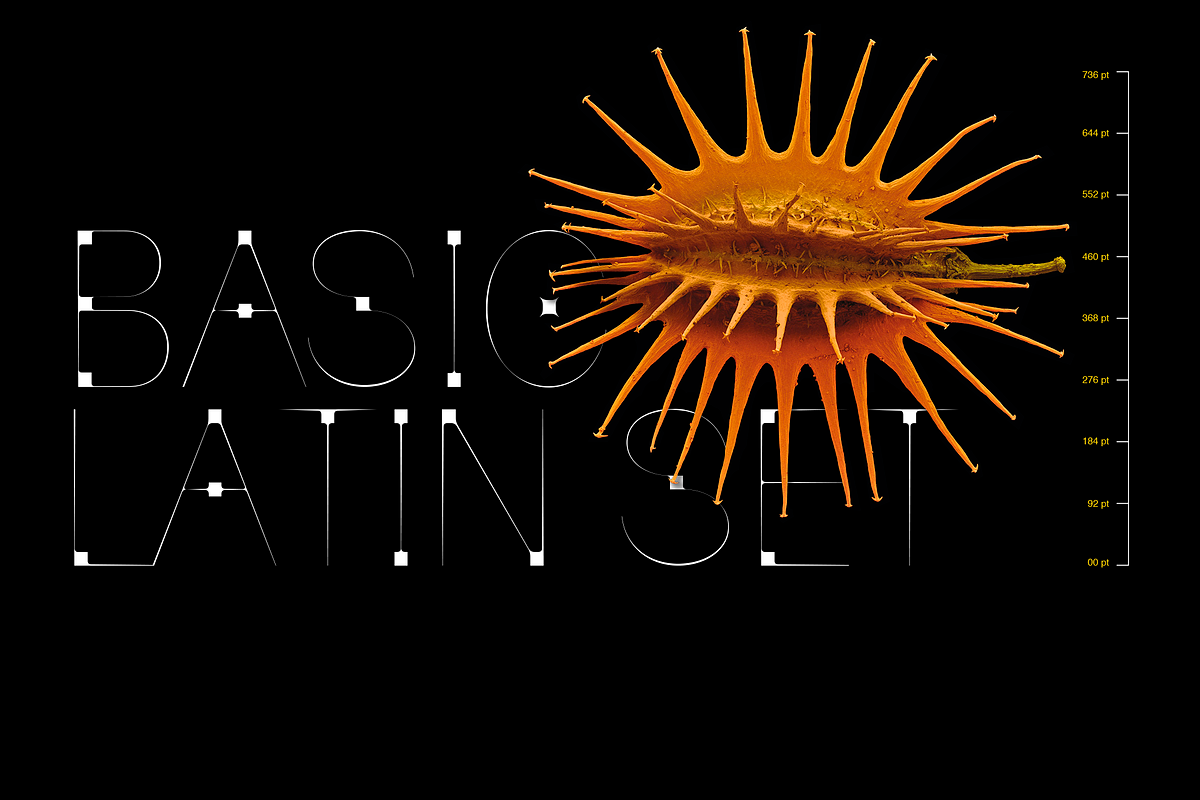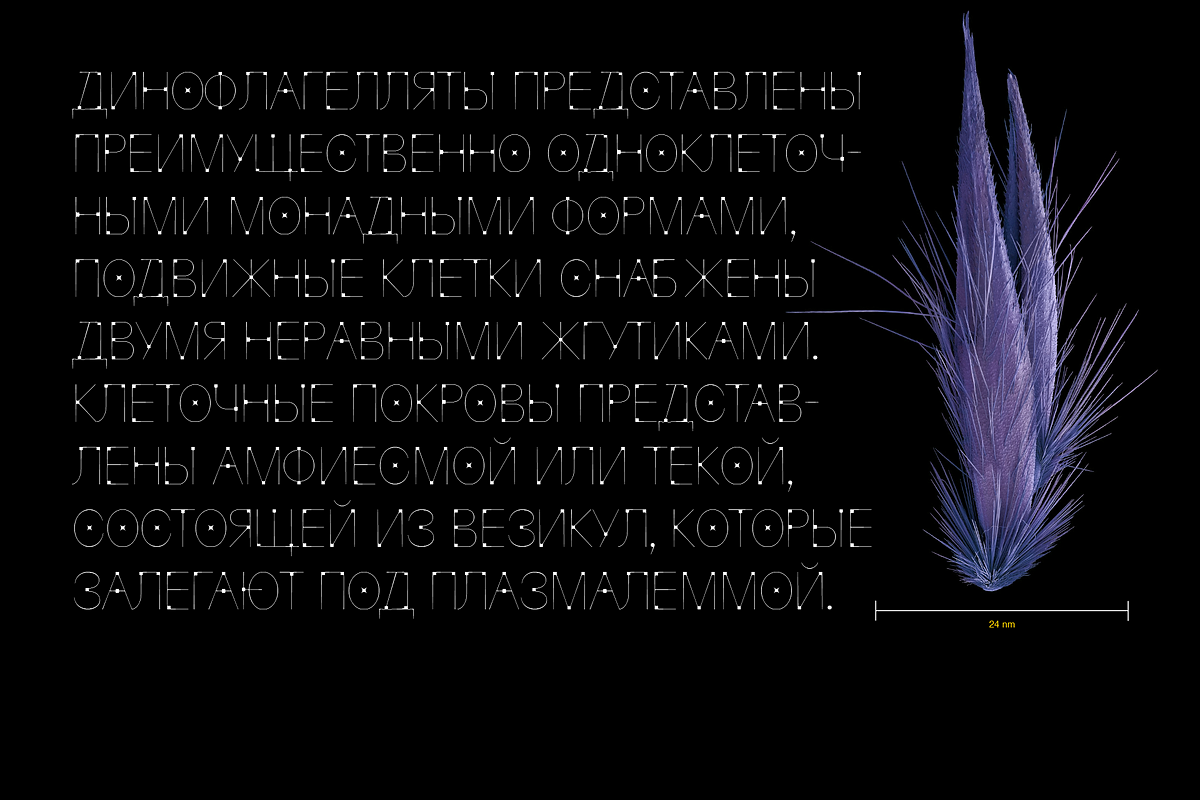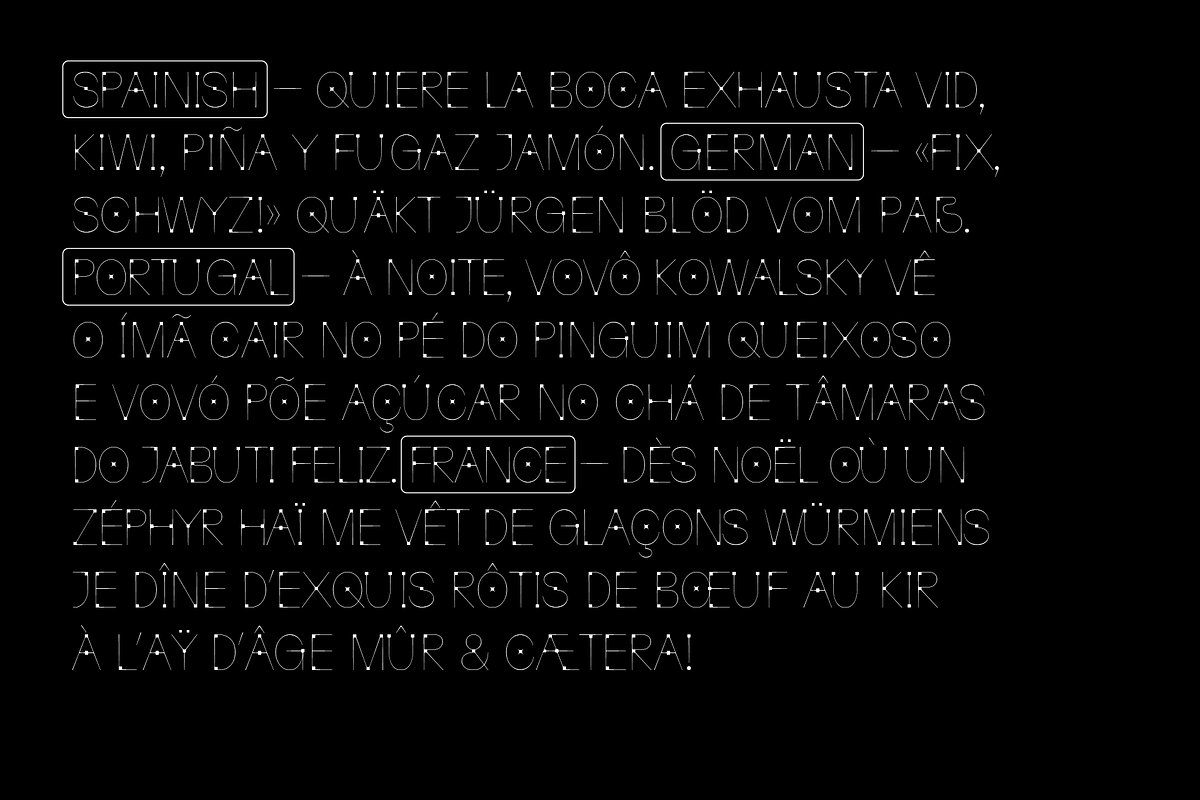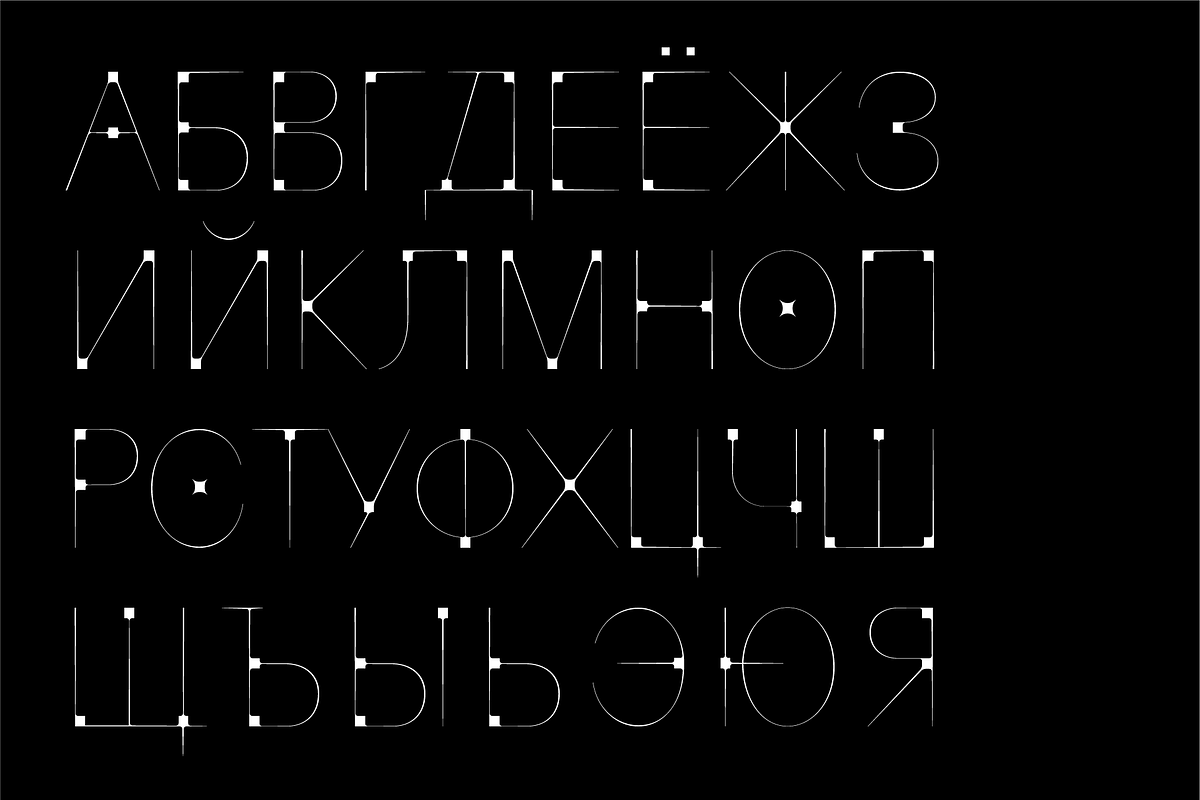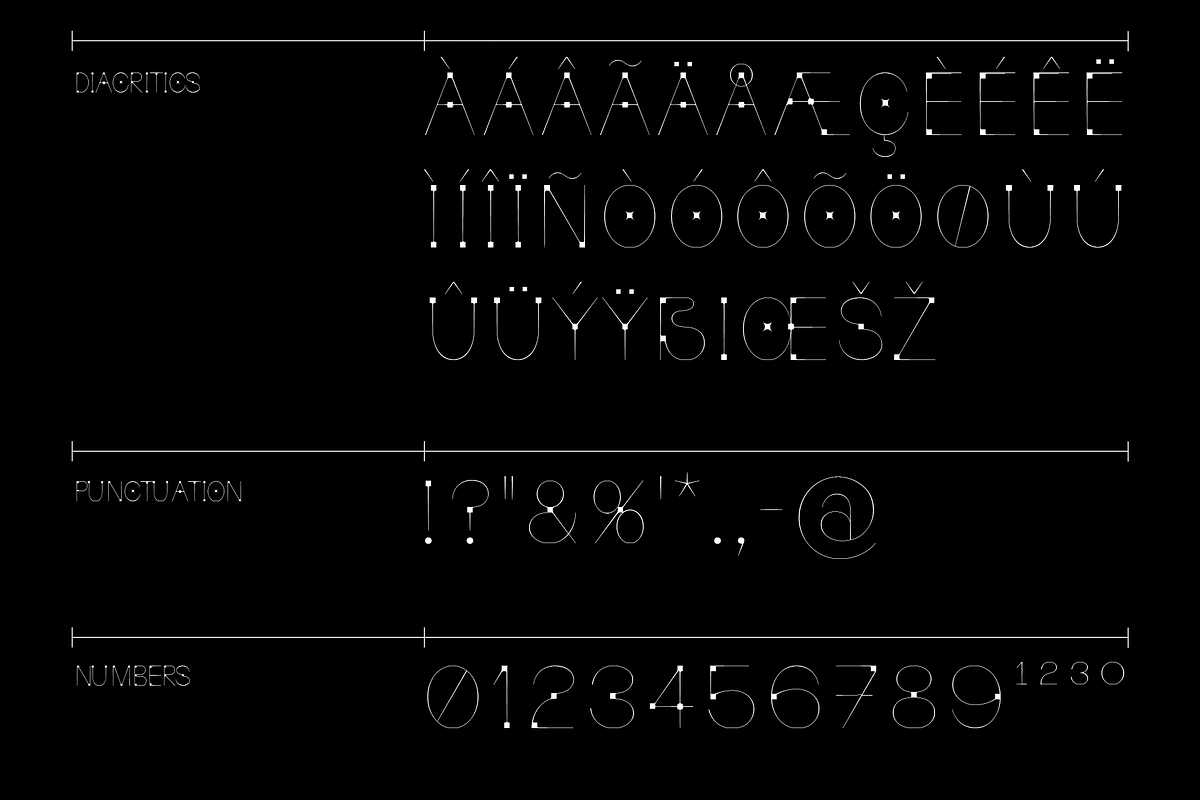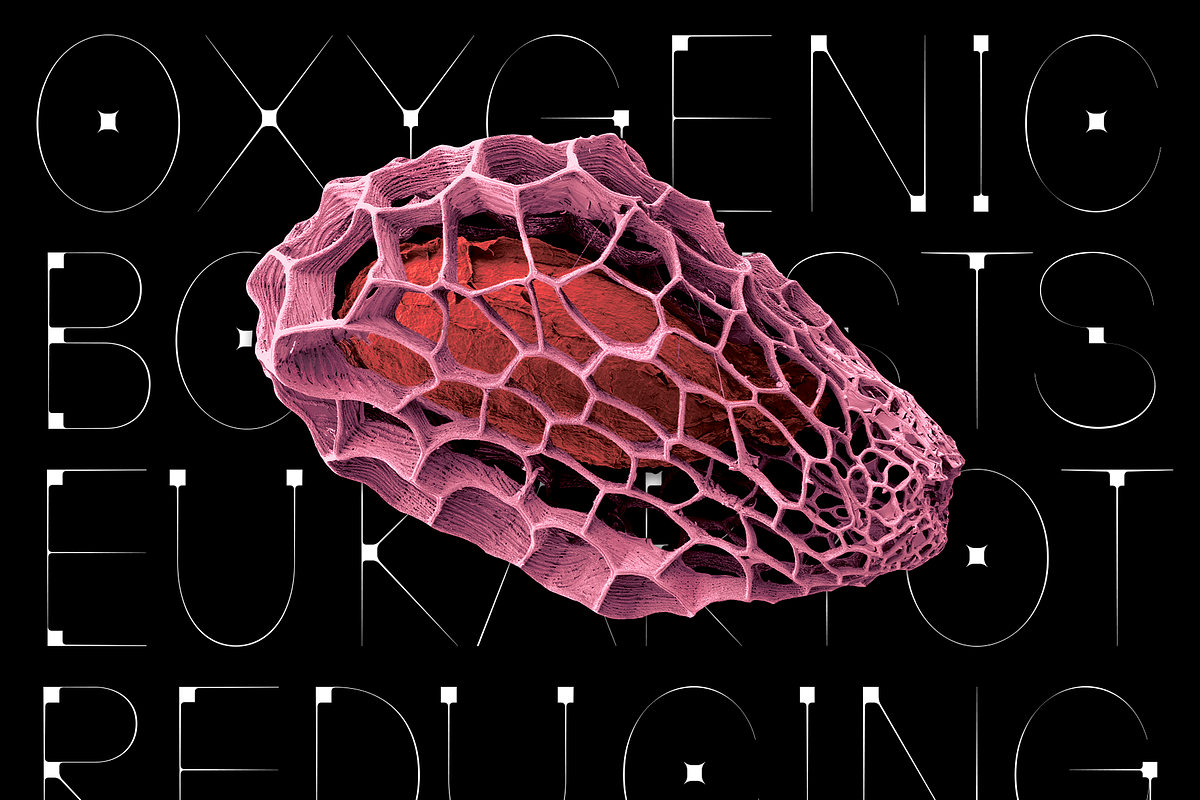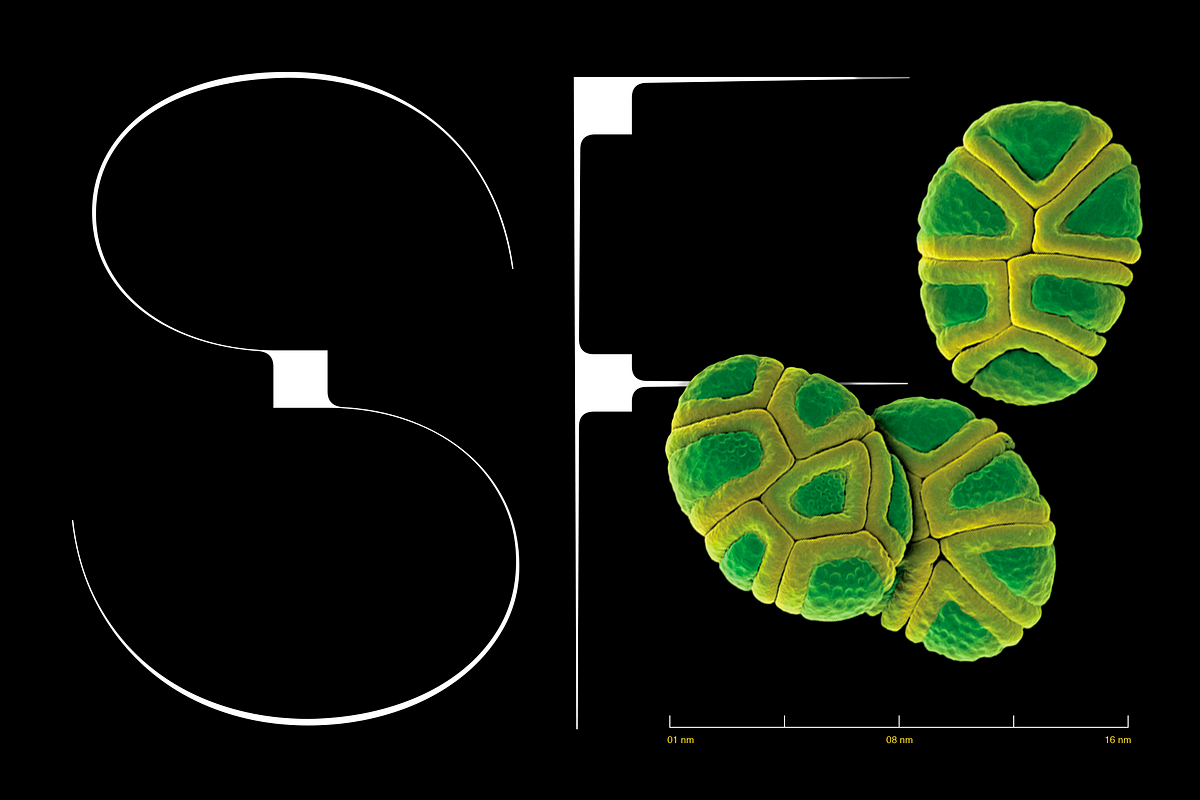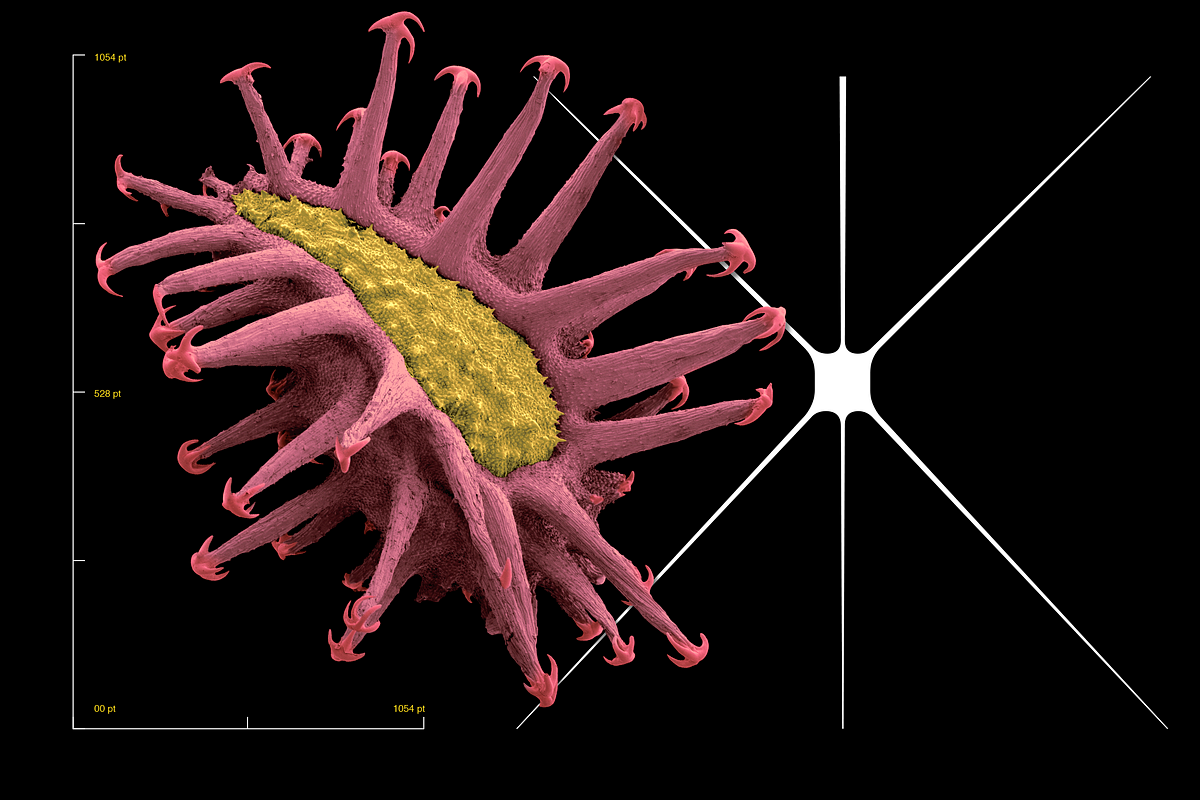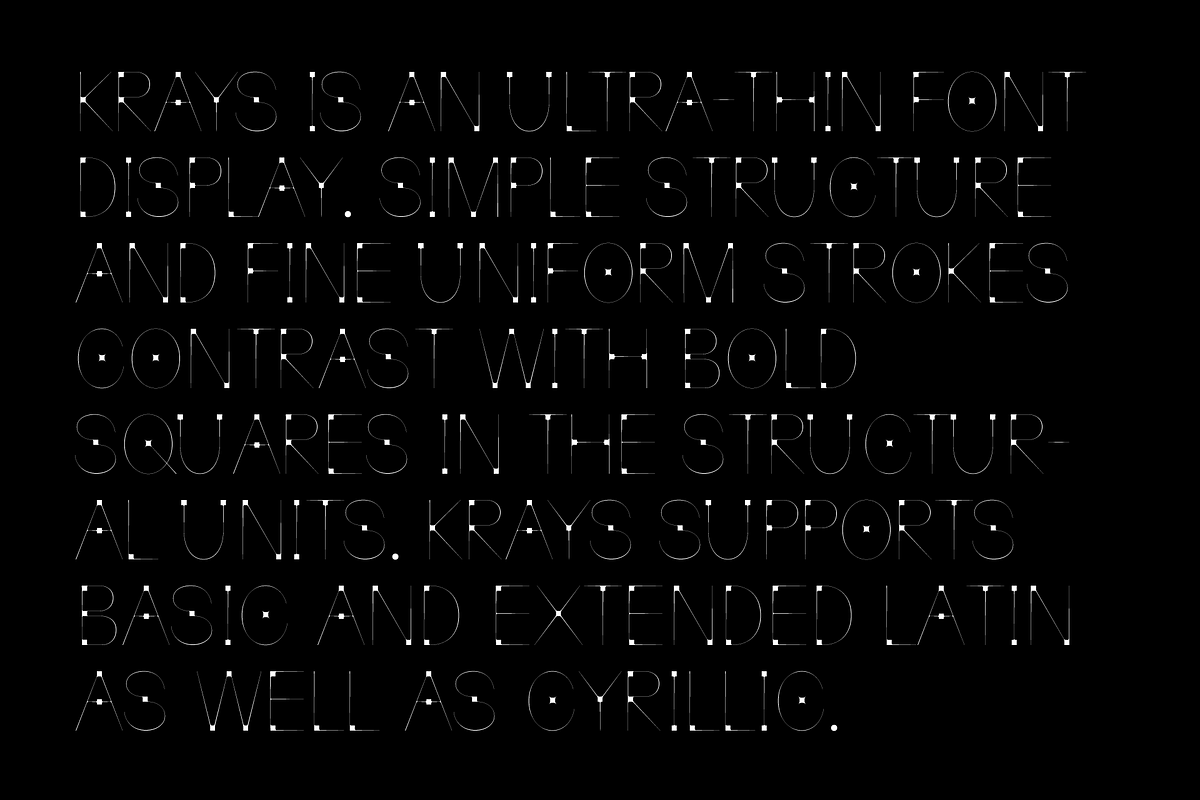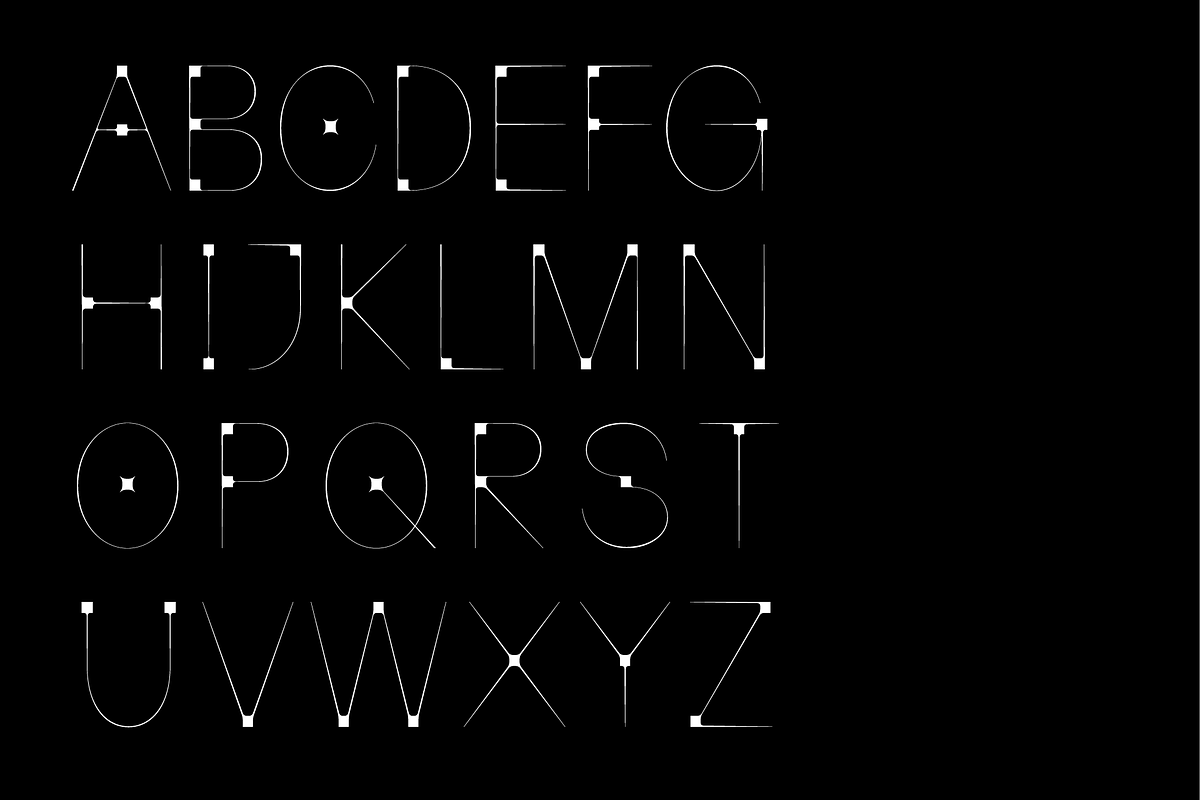
Krays — Extra Thin Accidental Font
♦ Krays is an ultra-thin font display. Simple structure and fine uniform strokes contrast with bold squares in the structural units. krays supports basic and extended Latin as well as Cyrillic.
The font is inspired by the biological structures of microorganisms. Plexuses of cellular tissues and primitive wildlife. The lines of the signs are very thin, but when they intersect, they fuse with each other, like living tissue.
This font is well suited for a sophisticated corporate identity or magazine. It looks good in a large size.
♦ Krays supports
- Basic Latin
- Extended latin
- Cyrillic
- Diacritics
- Punctuation signs
- Currencies